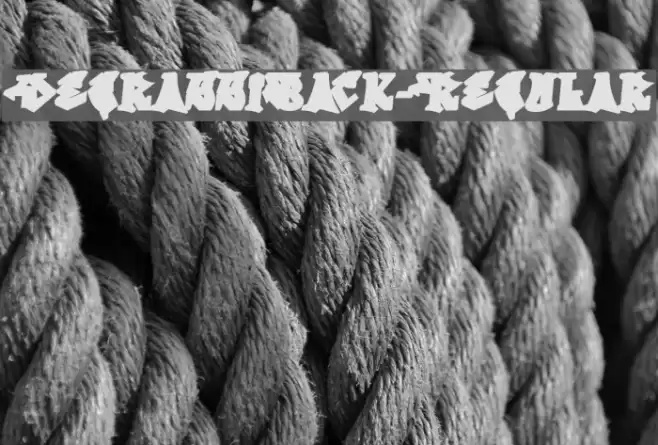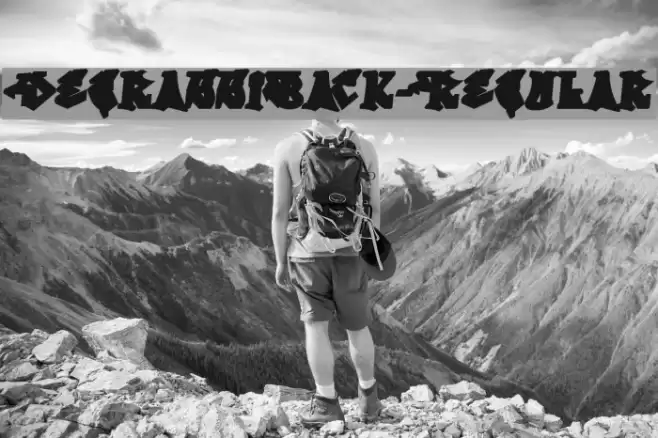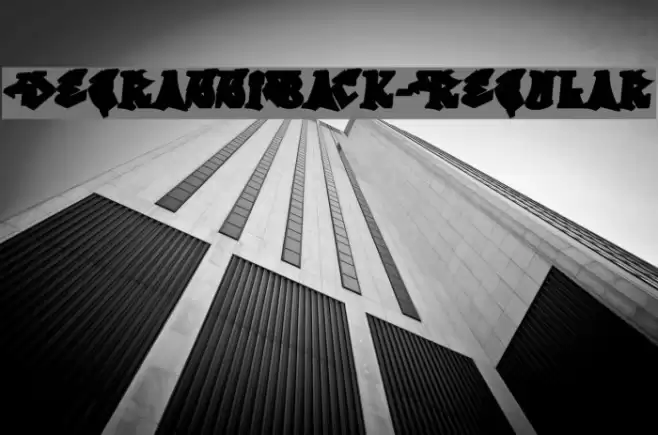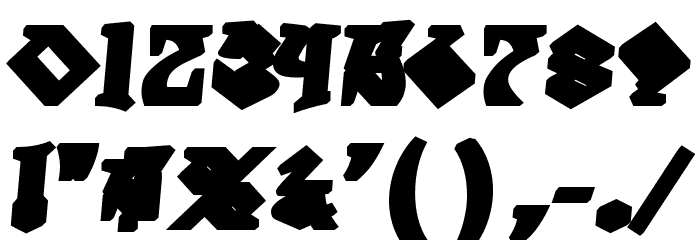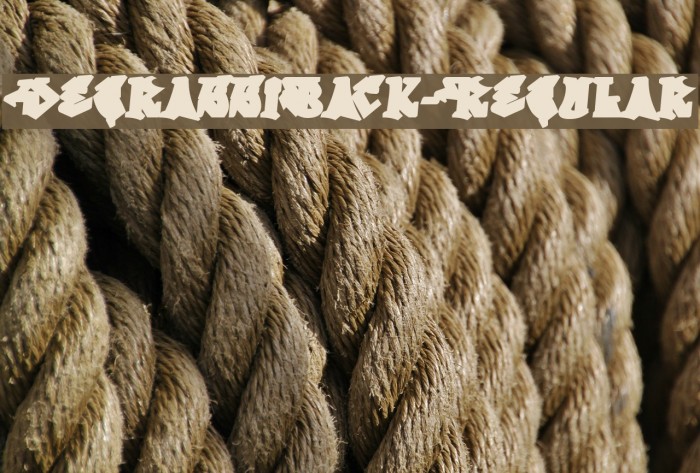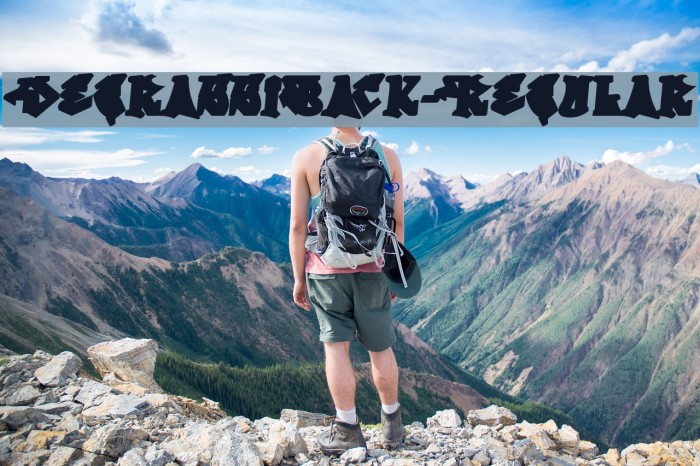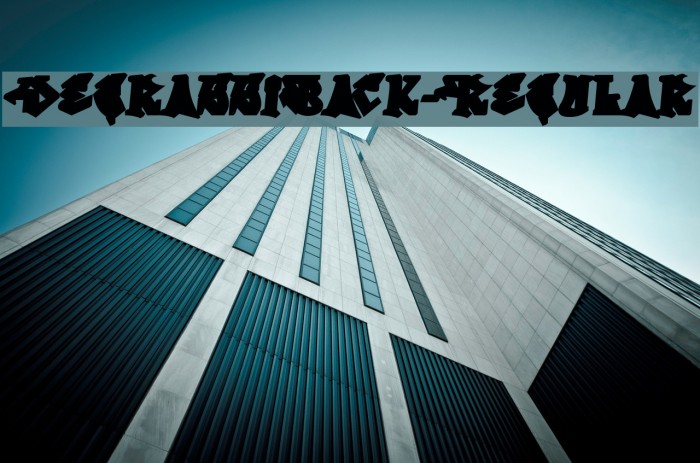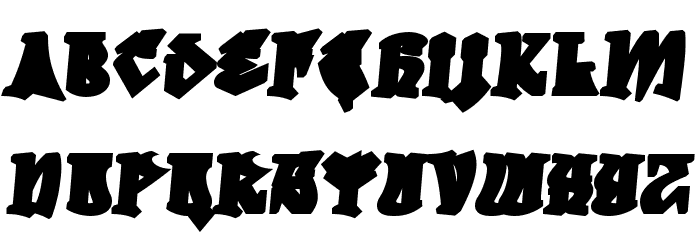
DegrassiBack-Regular Font
DegrassiBack-Regular Description
This font features a bold and dynamic style with sharp, angular edges and a distinct graffiti-inspired aesthetic. The characters are heavily stylized, with exaggerated forms and a strong presence. The uppercase and lowercase letters maintain a consistent visual theme, creating a cohesive look. The numbers and special characters follow the same design principles, ensuring uniformity across all glyphs. This font is ideal for projects that require a bold statement and a modern, urban feel.
A bold, graffiti-inspired font with sharp, angular edges from Uncategorized fonts.
- Proposed Projects: Ideal for street art designs, urban-themed posters, music album covers, and edgy branding projects.
- Character Spacing: Tight
- Overall Style: Modern, Urban